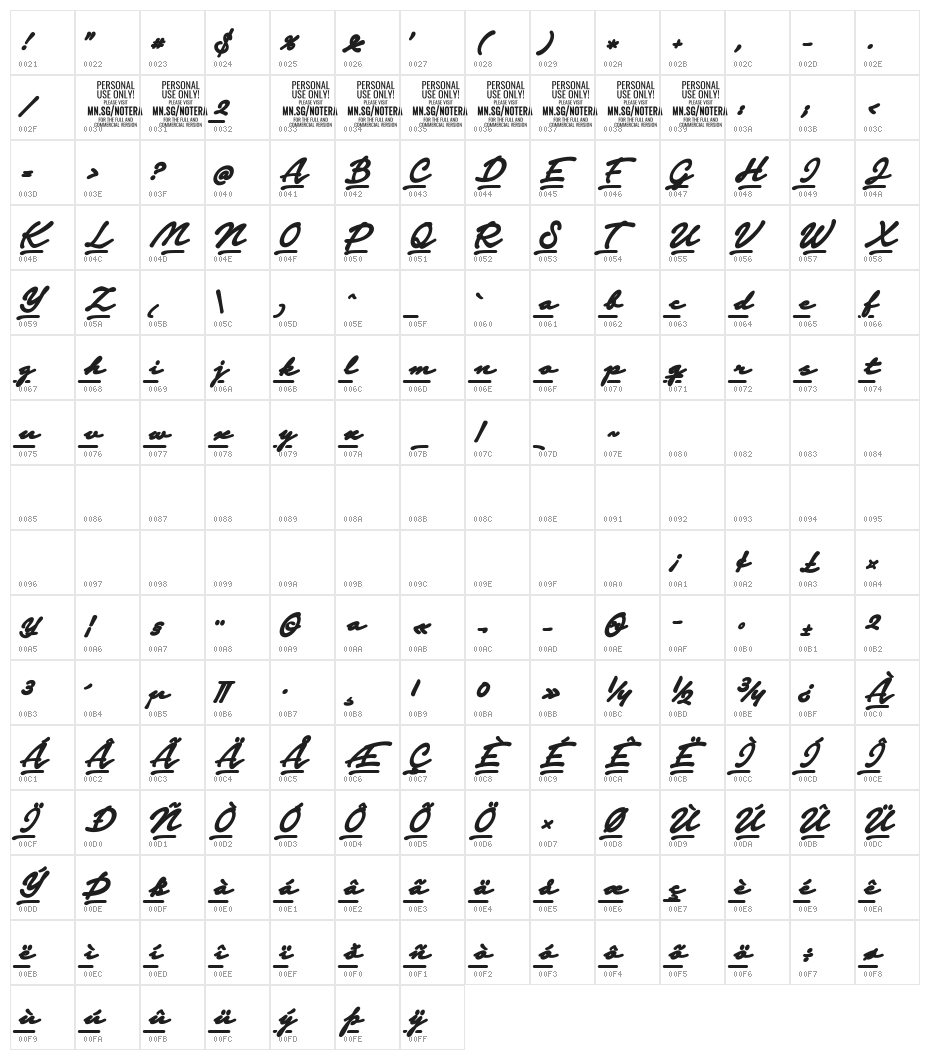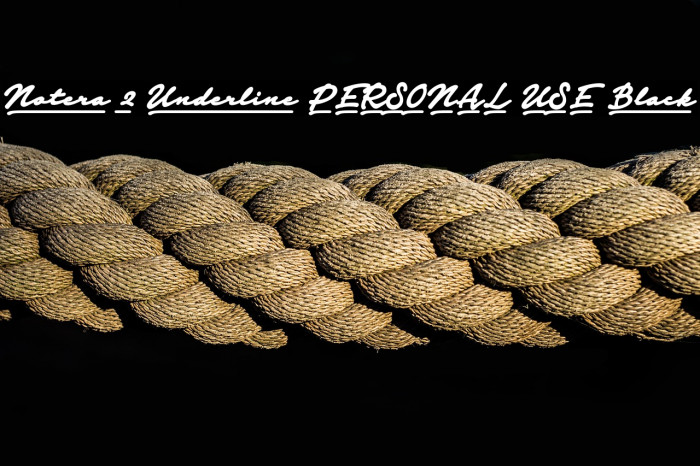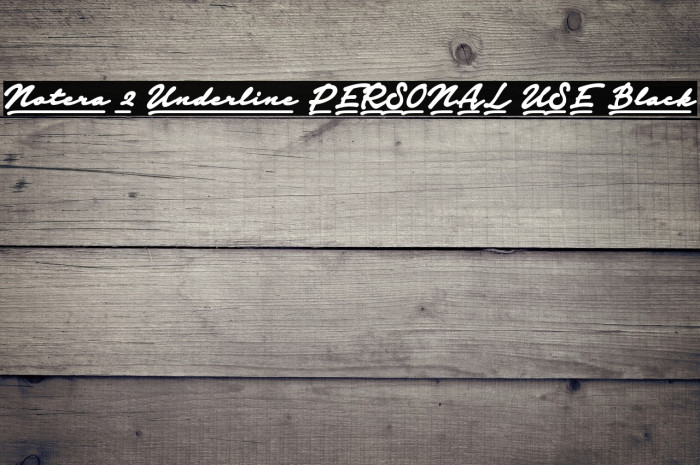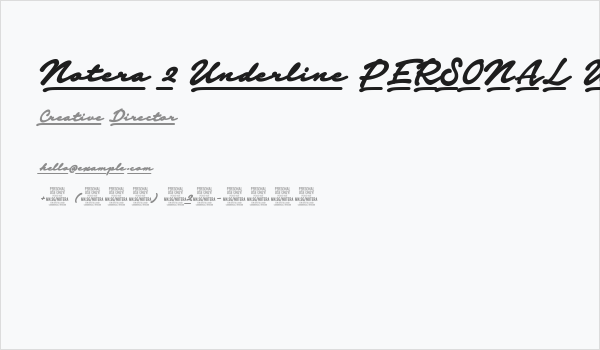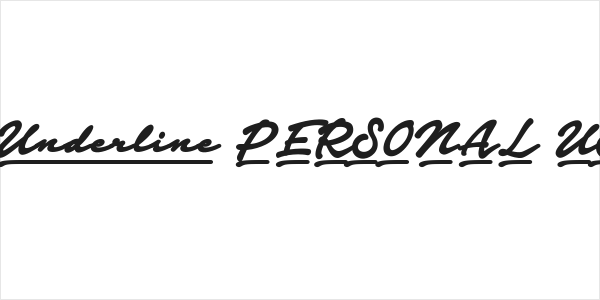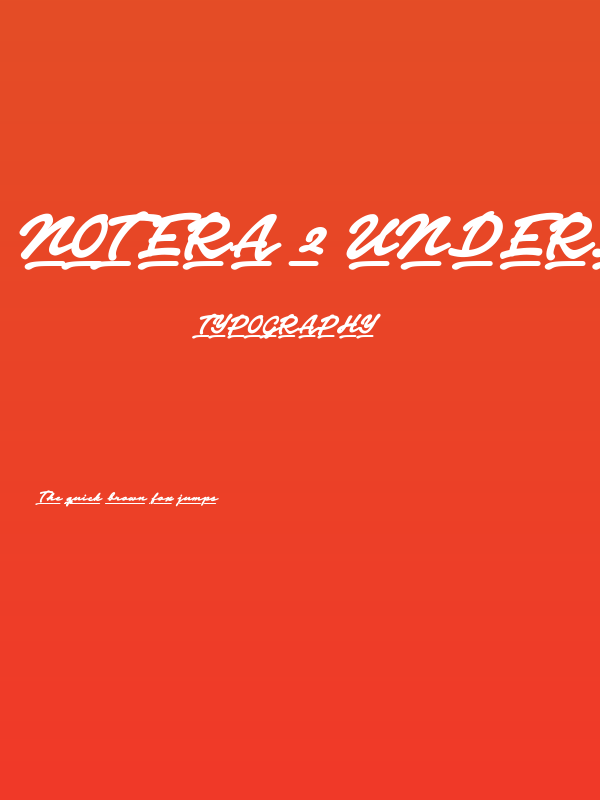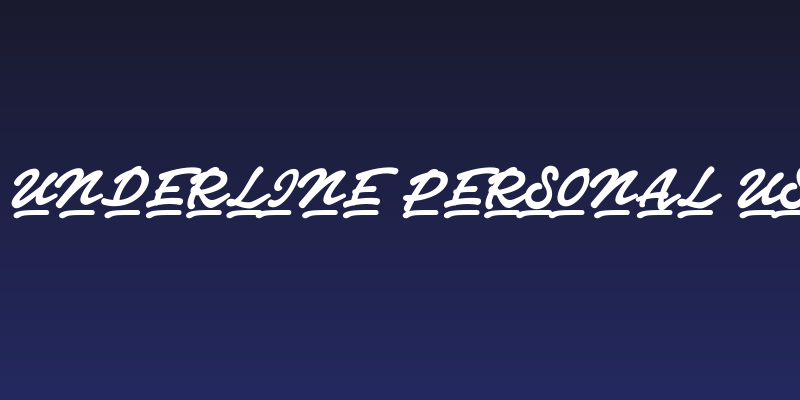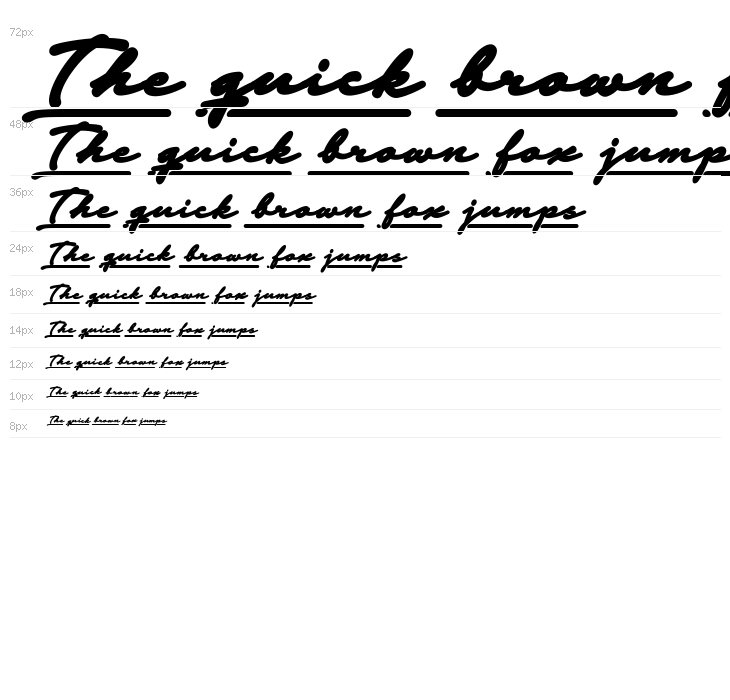
Notera 2 Underline PERSONAL USE Black Font
Notera 2 Underline PERSONAL USE Black Description
This font features a bold, cursive style with a distinctive underline beneath each character, giving it a dynamic and flowing appearance. The uppercase letters are elegantly crafted with smooth curves and consistent stroke widths, while the lowercase letters maintain a cohesive look with slightly exaggerated loops and tails. The font includes a full set of numerals and a variety of special characters, all maintaining the same bold and fluid style. The underline adds a unique touch, making it stand out for creative projects.